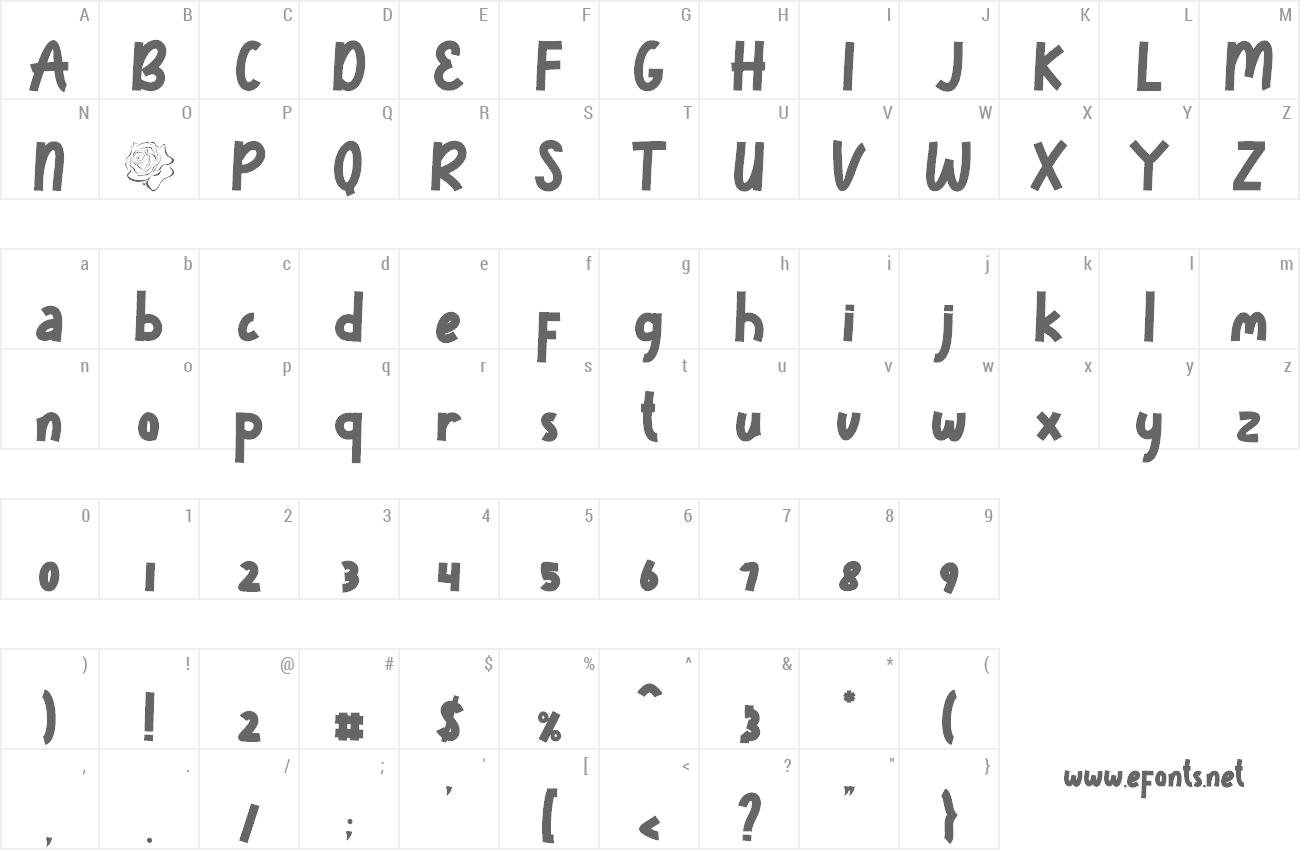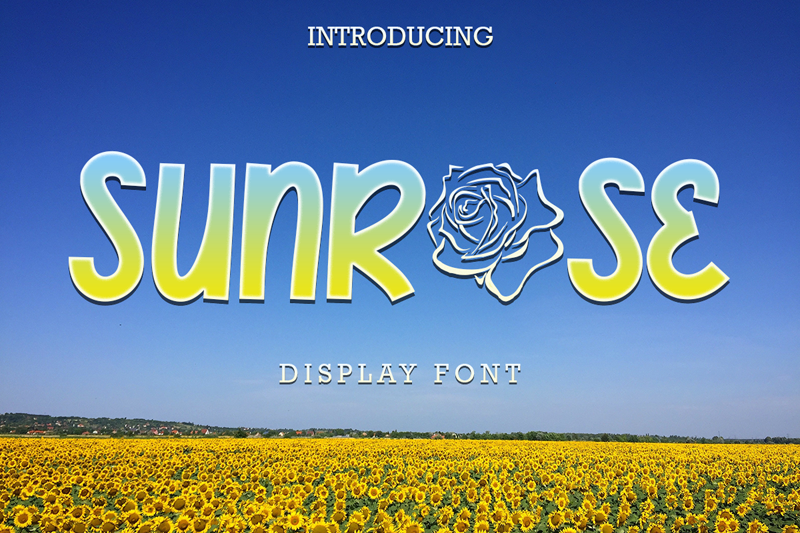
"Sunrose" is a unique display font combined with a rose shape which further adds to this unique and elegant font. This font is perfect for summer, spring, romance, wedding, invitations, greetings, gifts, birthday, holiday, beach, travel, promotion, business, logos, posters and more. By installing or using this font, you are agreeing to the Product Usage Agreement: This font is only for personal use. For Commercial use click: https://www.creativefabrica.com/product/sunrose/ref/377214/ https://www.creativefabrica.com/ref/377214/ Link Donation: https://www.paypal.com/paypalme/isroniyogaprasetya Please contact us before using for any Promotional or Commercial Use! (Email: yogaletter6@gmail.com) Follow our social media for update more great fonts and informations : Instagram: @isroniyogaprasetya Facebook: isroni yoga prasetya Please, let me know if you have any questions! :) Thank you :) |